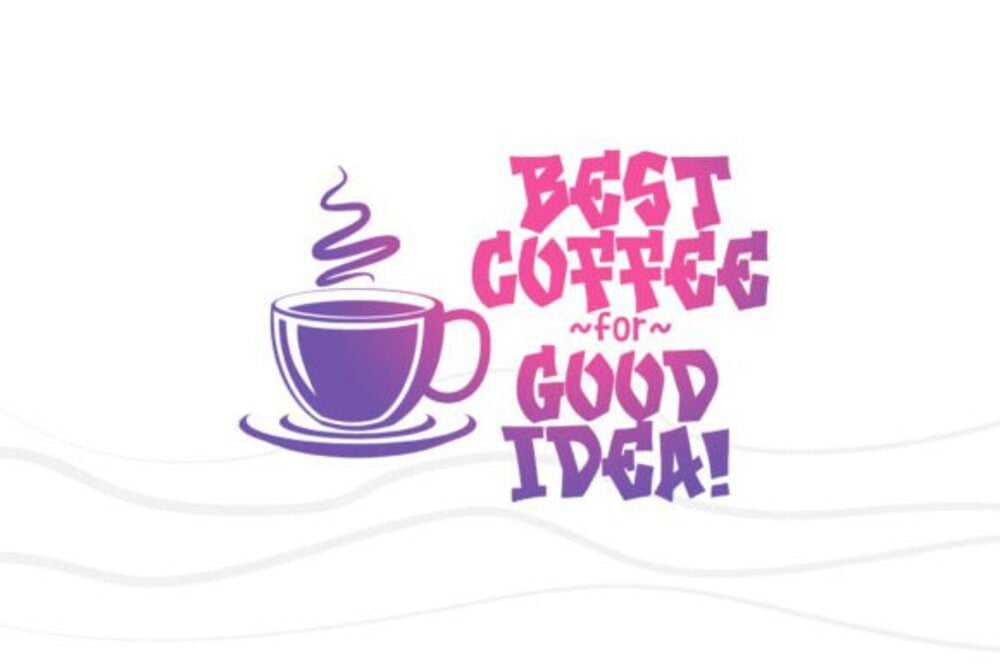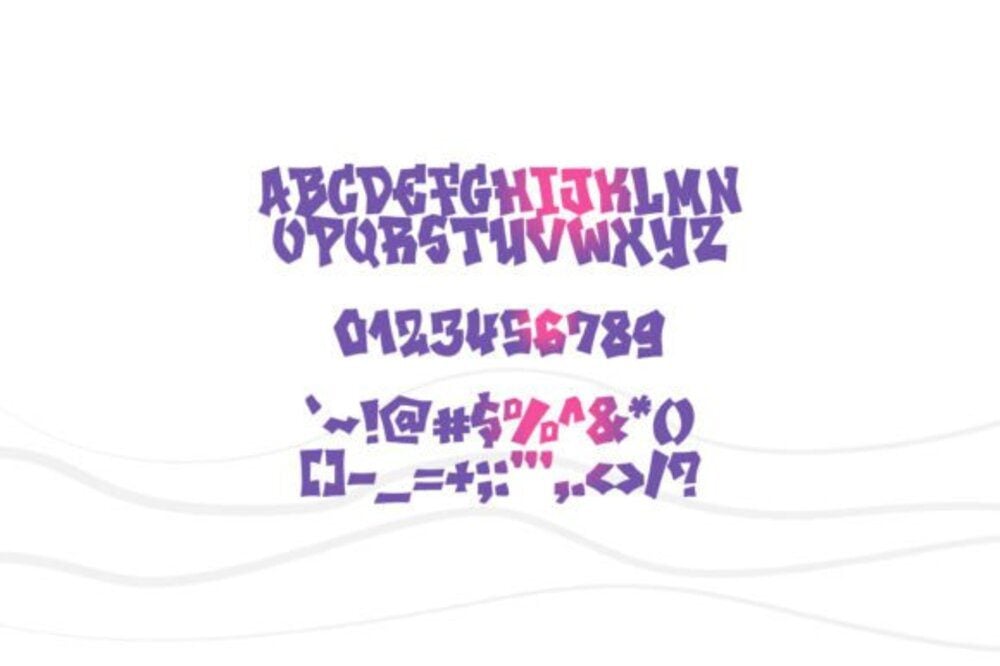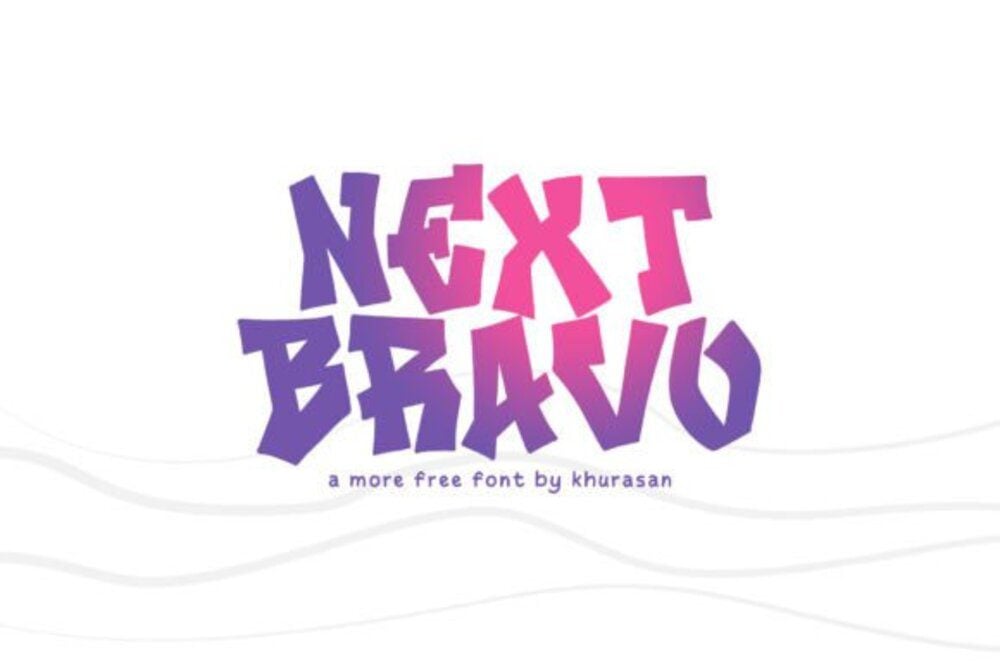
Next Bravo Font
Next Bravo Font is a sleek and contemporary typeface that blends elegance with boldness. Its clean lines and geometric shapes make it versatile for modern designs, from branding to digital interfaces. With a confident and sophisticated style, this font exudes professionalism and creativity, making it ideal for headlines, logos, and presentations that demand attention and leave a lasting impression.